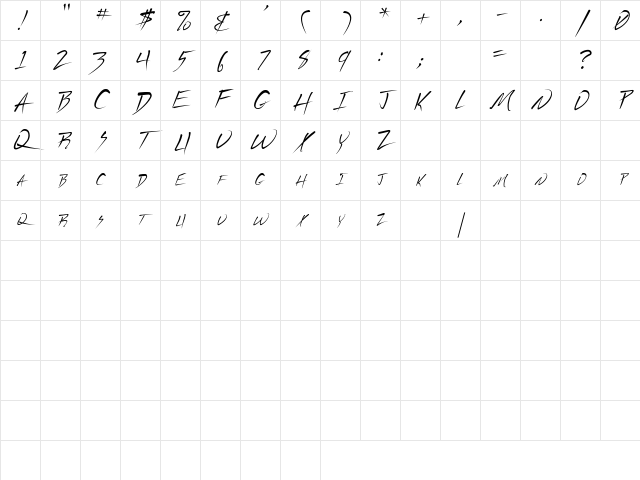
Complete Vecker Regular glyph index. Displaying only characters natively supported by Vecker Regular font.
Vecker is a composed and adaptable typeface that performs quietly and consistently across a wide range of design contexts.